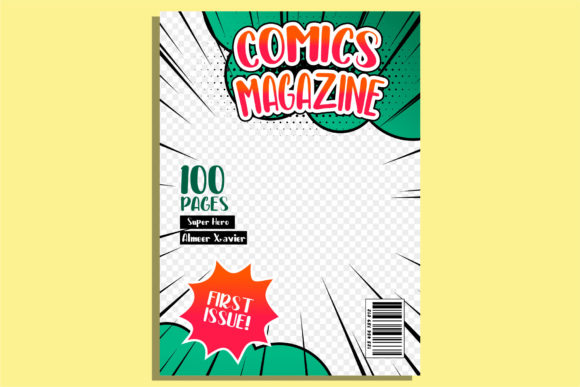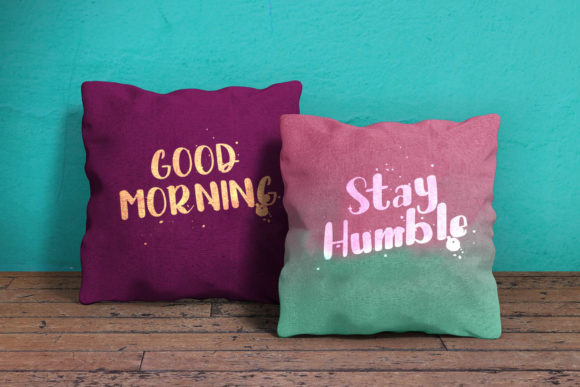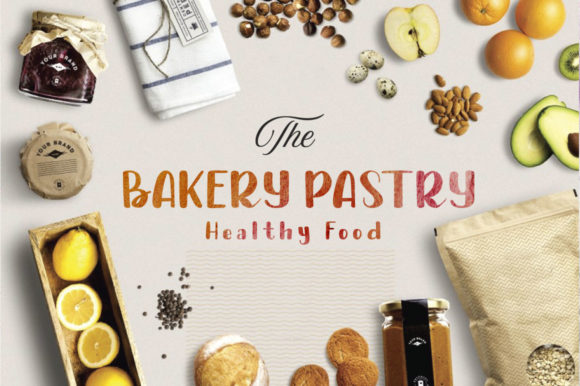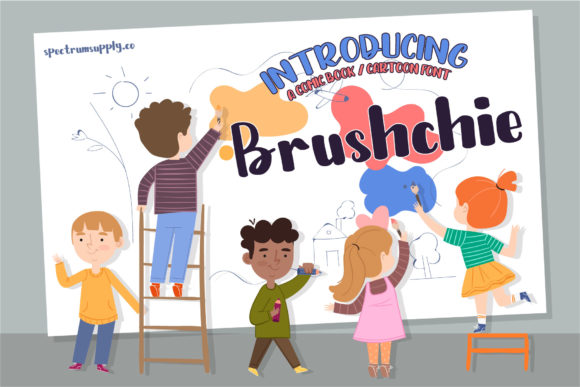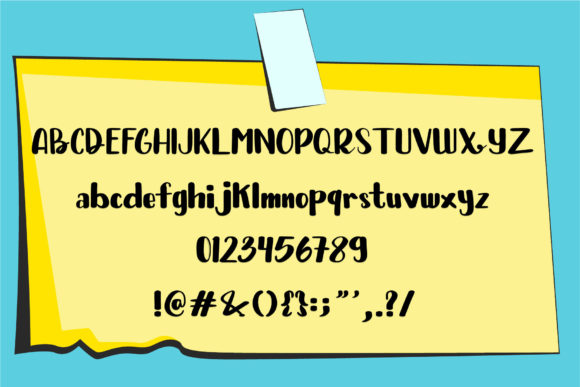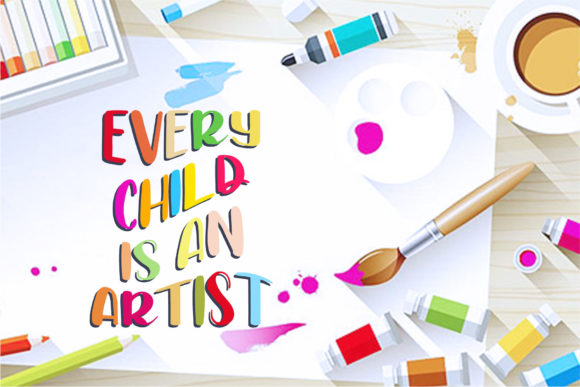
Introducing Brushchie Font: Elevate Your Designs with a Simple yet Striking Display Font
Are you a designer or crafter looking for a font that can add a touch of elegance and sophistication to your creative projects? Look no further than Brushchie Font! This simple and neat lettered display font is designed to make your ideas stand out, and in this article, we’ll explore what makes Brushchie so special and how you can use it to take your designs to the next level.
What is Brushchie Font?
Brushchie Font is a beautifully crafted display font that features a unique, hand-lettered style. Its simplicity and neatness make it perfect for a wide range of design applications, from branding and advertising to crafting and DIY projects. With its clean lines and elegant curves, Brushchie is sure to add a touch of sophistication to any design.
Key Features of Brushchie Font
• Simple and Neat Design: Brushchie Font features a simple and neat design that makes it easy to read and recognize.
• Hand-Lettered Style: The font’s hand-lettered style gives it a unique and personal touch that sets it apart from more traditional fonts.
• Elegant Curves: Brushchie’s elegant curves add a touch of sophistication and elegance to any design.
• Versatile: Brushchie Font is versatile and can be used for a wide range of design applications, from branding and advertising to crafting and DIY projects.
How to Use Brushchie Font in Your Designs
Brushchie Font is easy to use and can be incorporated into your designs in a variety of ways. Here are a few ideas to get you started:
• Branding and Advertising: Use Brushchie Font to create eye-catching logos, advertisements, and marketing materials that will help your brand stand out.
• Crafting and DIY Projects: Add a personal touch to your crafting and DIY projects with Brushchie Font. Use it to create custom signs, labels, and packaging.
• Social Media Graphics: Use Brushchie Font to create engaging social media graphics that will help you connect with your audience.
• Web Design: Incorporate Brushchie Font into your web design to add a touch of elegance and sophistication to your website.
Benefits of Using Brushchie Font
There are many benefits to using Brushchie Font in your designs. Here are a few:
• Unique and Eye-Catching: Brushchie Font is a unique and eye-catching font that will help your designs stand out from the crowd.
• Elegant and Sophisticated: The font’s elegant curves and simple design make it perfect for designs that require a touch of sophistication.
• Versatile: Brushchie Font is versatile and can be used for a wide range of design applications.
• Easy to Read: The font’s clean lines and simple design make it easy to read and recognize.
In conclusion, Brushchie Font is a simple and neat lettered display font that is perfect for designers and crafters looking to add a touch of elegance and sophistication to their creative projects. With its unique and eye-catching design, elegant curves, and versatility, Brushchie Font is sure to make your ideas stand out. So why not give it a try and see how it can elevate your designs to the next level?